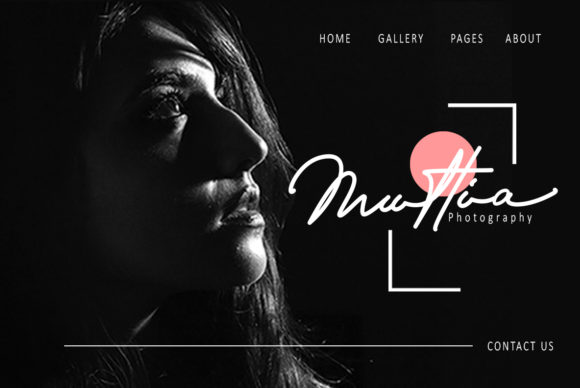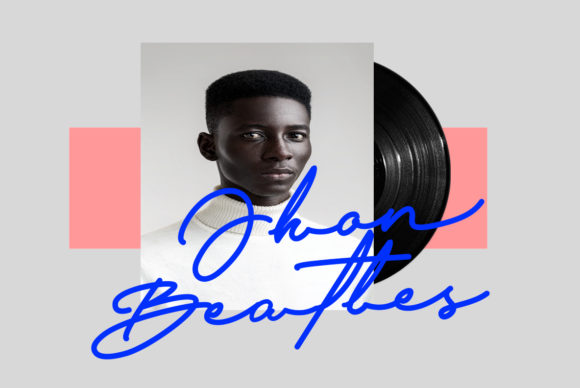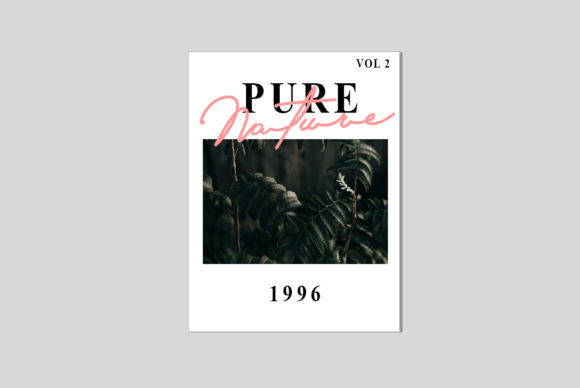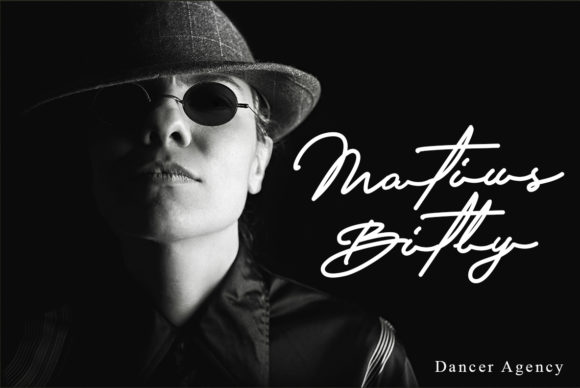
Bitly Font
About Bitly Font
The Bitly is a modern, easy to use typeface. Its handwritten style is perfect for logos, branding, posters, headlines, magazines, book covers, business cards, wedding invitations, and much more!